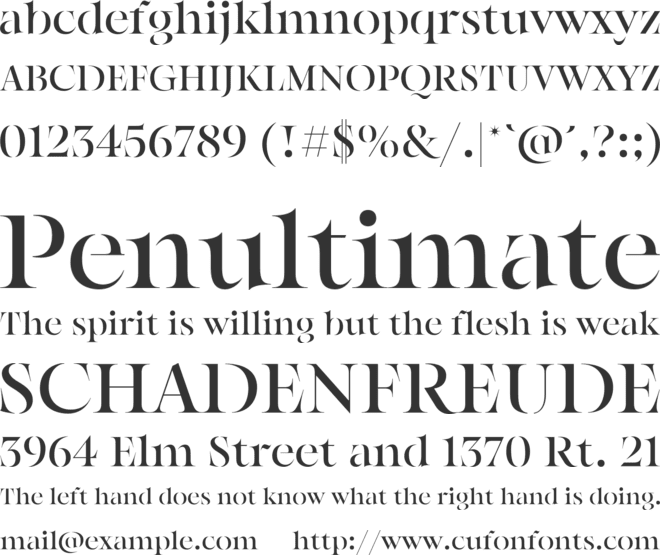
Laire Banyu Sandi Pawenang
High Contrast Serif with Timeless Elegance Serif era is back!
Kiltier is a high-contrast serif font that blends contemporary
aesthetics with timeless elegance. Crafted with precision and
meticulous attention to detail, Kiltier comes in 14 weights, both in
roman and italic, offering exceptional versatility for various design
needs.